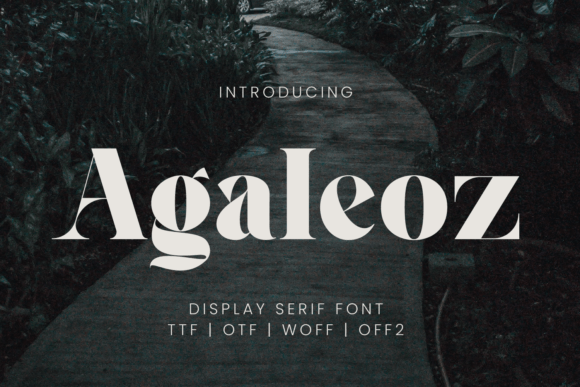
The Agaleoz Font: Elevate Your Designs with Elegance
I’ll never forget the time I was working on a wedding invitation design project, and my client asked me to create a sophisticated, yet romantic look. I scoured the internet for the perfect font, and that’s when I stumbled upon Agaleoz. This elegant serif font has been a game-changer for me, and I’m excited to share my experience with you.
A Personal Review of Agaleoz
As a designer, I’m always on the lookout for fonts that can elevate my projects. Here’s what I love about Agaleoz:
• ✨ Elegant serif design that’s perfect for logos, branding, invitations, and more
• 🖌️ Beautifully crafted to add a touch of sophistication to any design
While Agaleoz is an excellent font, it’s not without its quirks:
• 🤔 Some users might find the font a bit too ornate for certain projects
• ⚠️ Limited availability of certain OpenType features in older software versions
The Story Behind Agaleoz
Agaleoz was designed by a team of typographers who wanted to create a font that exudes elegance and sophistication. Inspired by classic serif fonts, Agaleoz was crafted to be highly legible and versatile. The design team aimed to create a font that would be perfect for a variety of applications, from logos and branding to invitations and wedding designs.
What is Agaleoz? Agaleoz is an elegant serif font designed for use in logos, branding, invitations, stationery, wedding designs, social media posts, and more.
Is Agaleoz suitable for body text? While Agaleoz is highly legible, it’s best suited for headlines, titles, and short paragraphs. For longer body text, consider using a font with more generous spacing and clearer letterforms.
Does Agaleoz support OpenType features? Yes, Agaleoz supports various OpenType features, including stylistic alternates, glyphs, and ligatures.